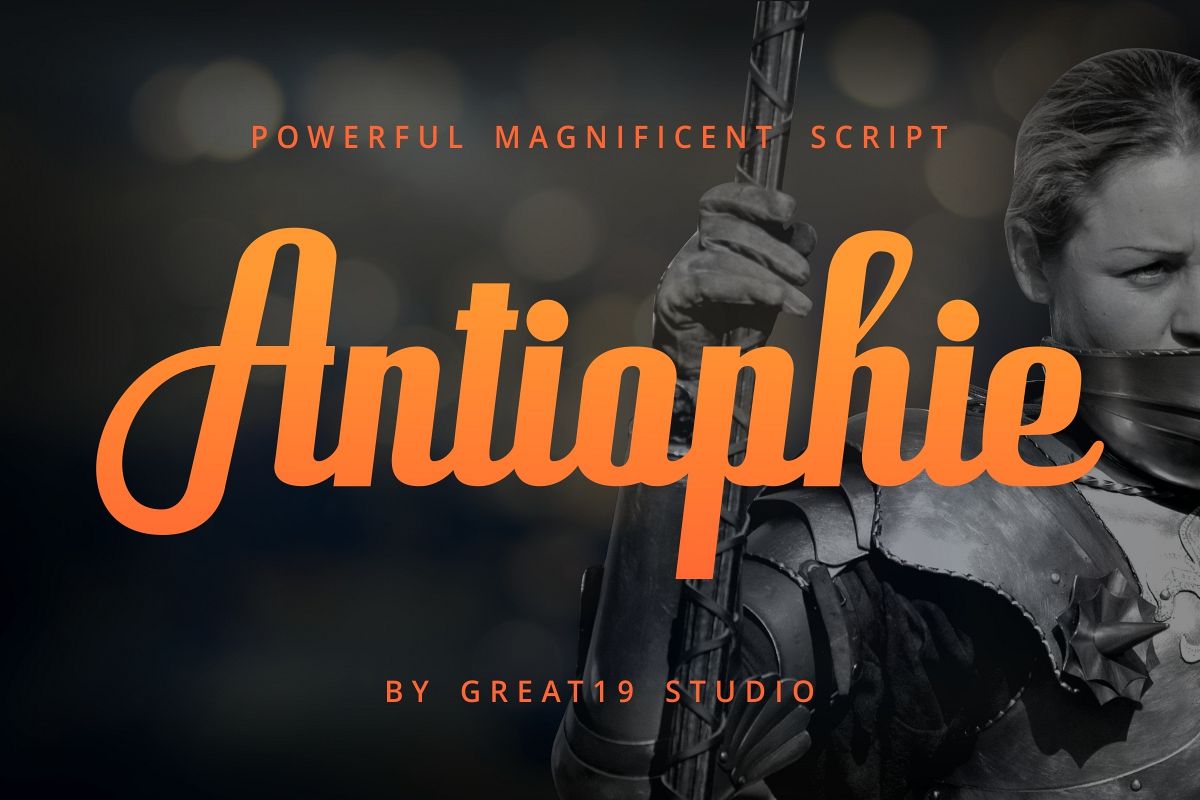
Antiophie Script
antiophie
Antiophie Script
A bold and elegant type face but also outstanding.
This font was created to look strong and fabulous on its own as a single word or typographic design.
Antiophie script is perfect for Tittle, Magazine, Logotype, Packaging, Branding, Book Cover, Header, Poster and other creative design that needs an eye catching type face.